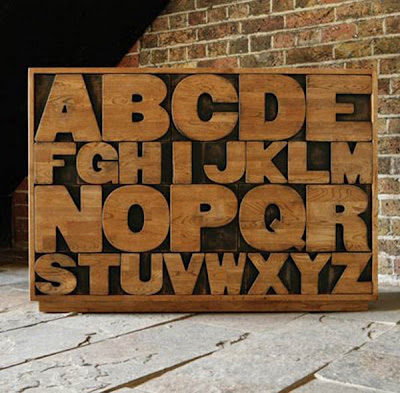
TypeFace Tuesday :: Alphabet Drawers
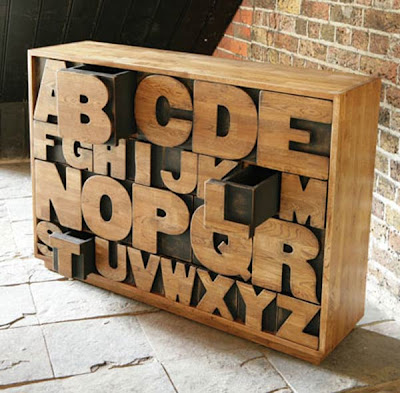
How cool are these Alphabet Drawers by Kent and London?? Made of solid oak, this beautiful chest houses 26 drawers, so you can file away everything from A-Z! Love the obvious printing block inspiration.